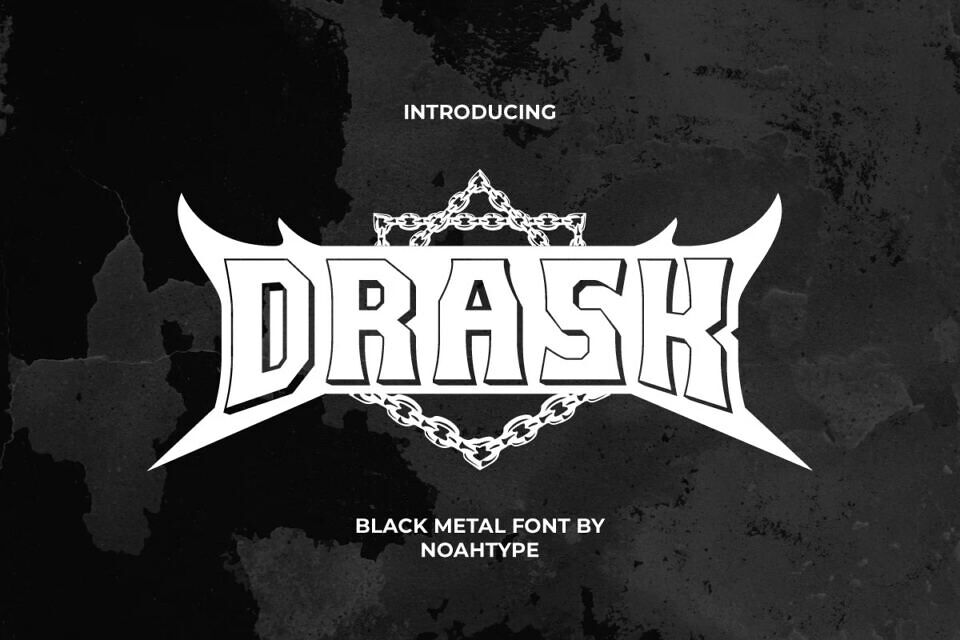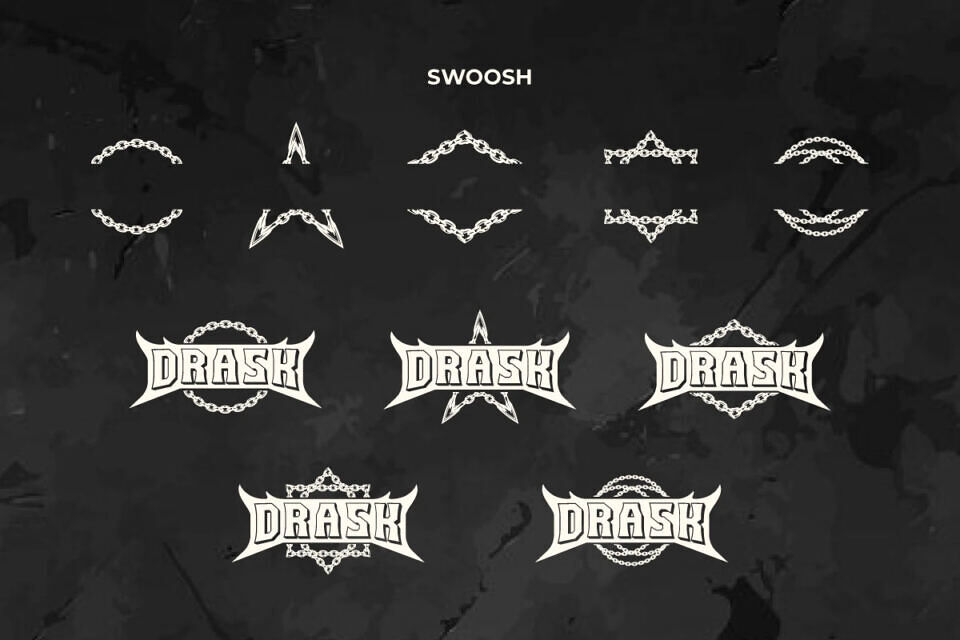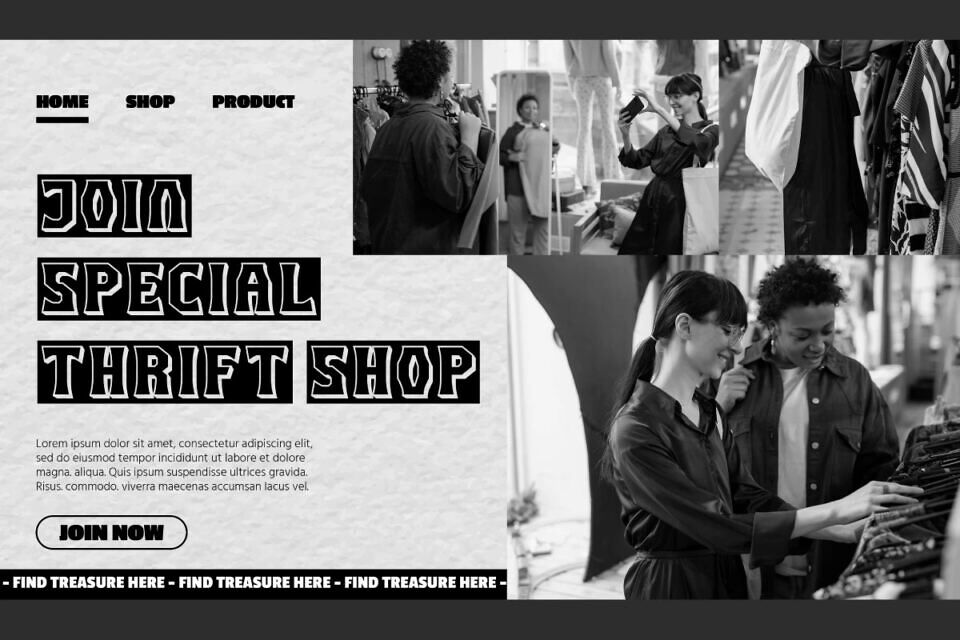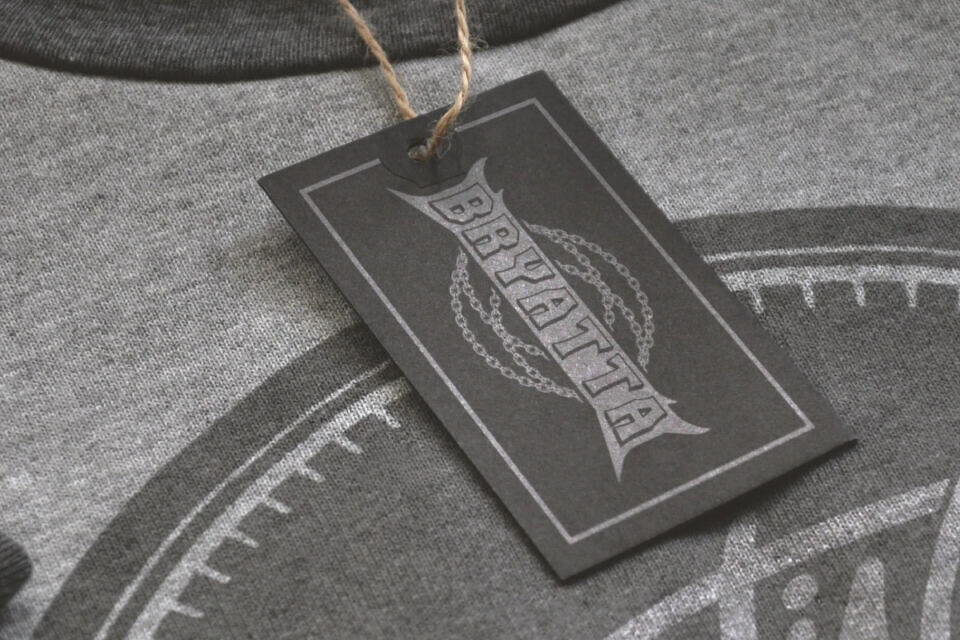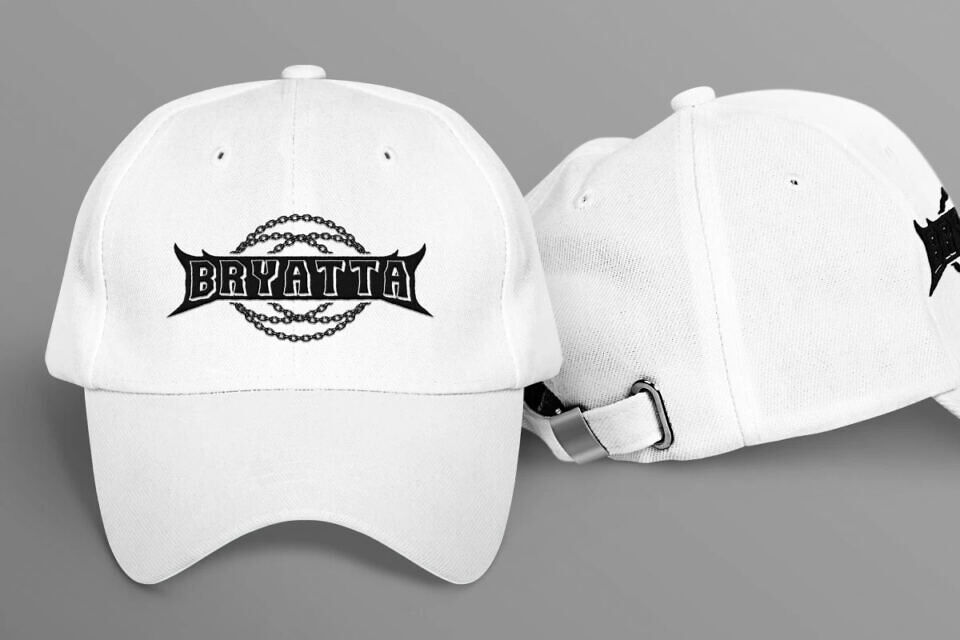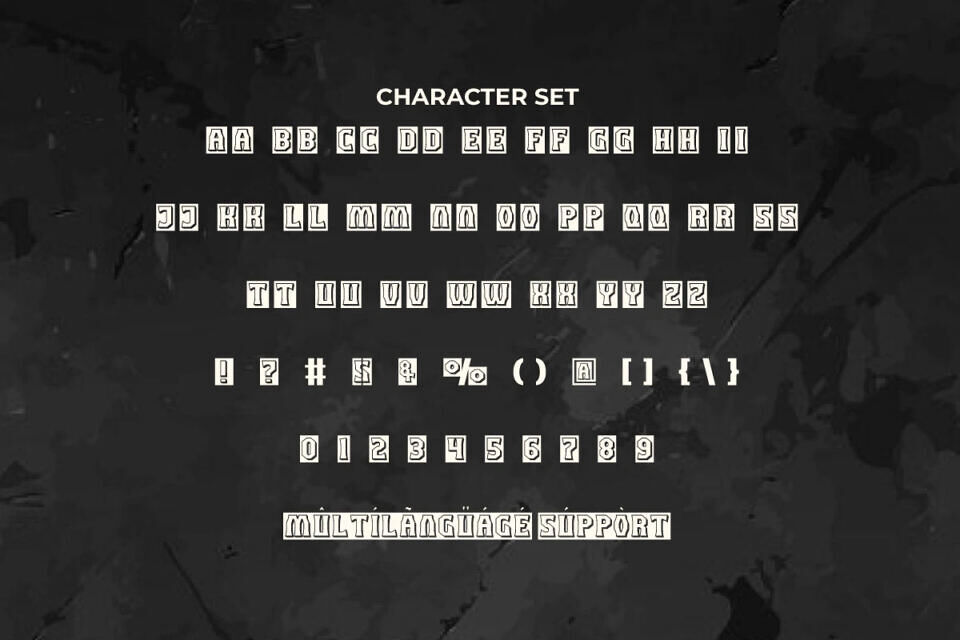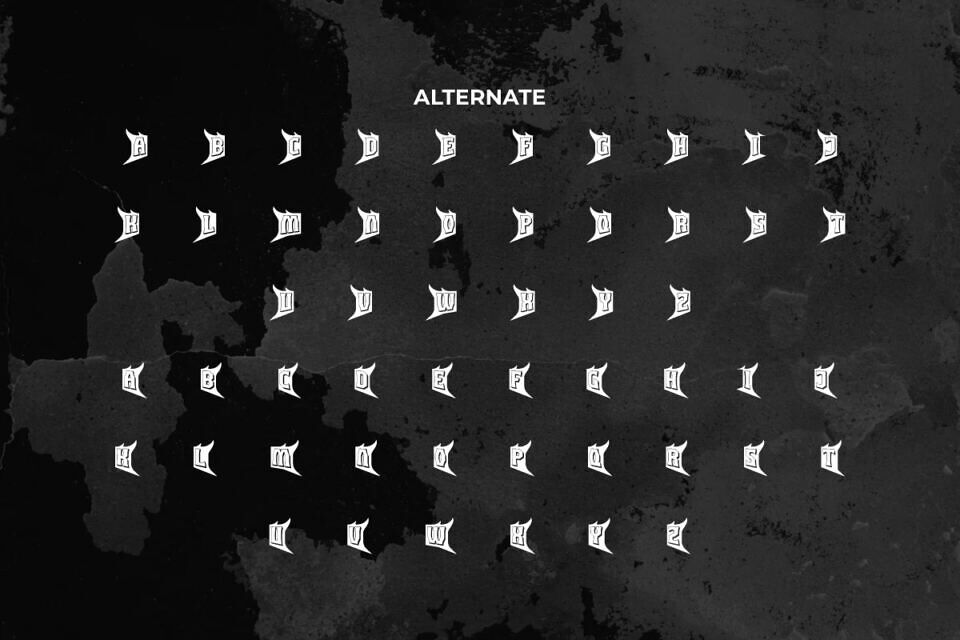
Drask Font
Drask Font is a Dracula vampire mysterious horror but fun decorative black metal band font by NoahType. This font is made with enough detail that it has many elements that make it perfect for automotive type concepts.
It will be perfect for any designs, such as custom design, brand image, poster, label, invitation, cover, marketing material, menu, printing, product packaging, quotes, signage, website, and many more!